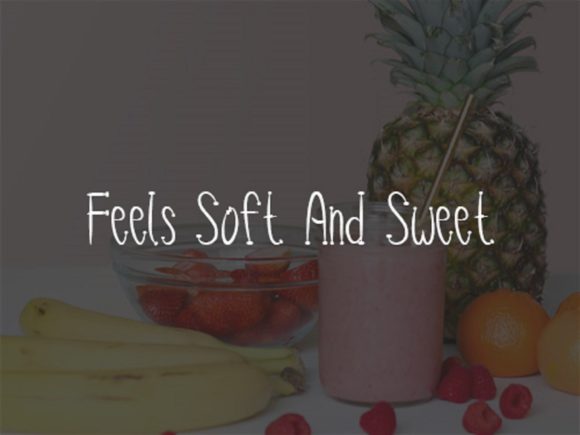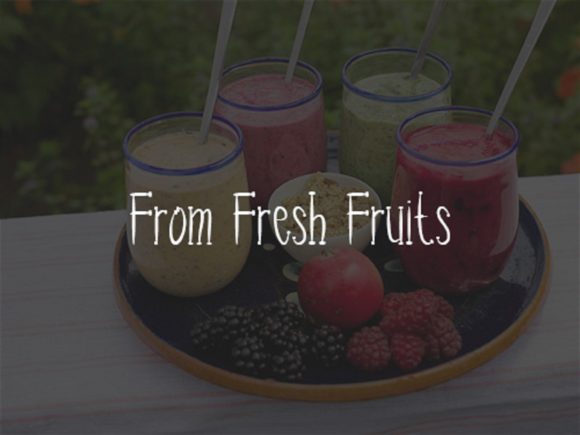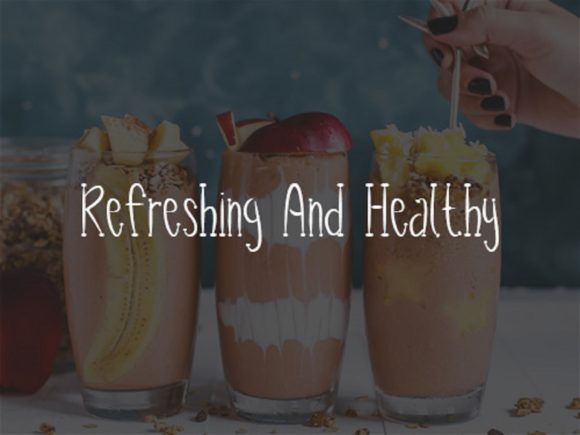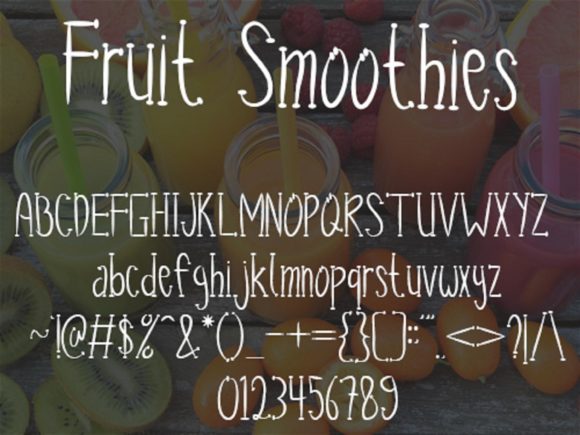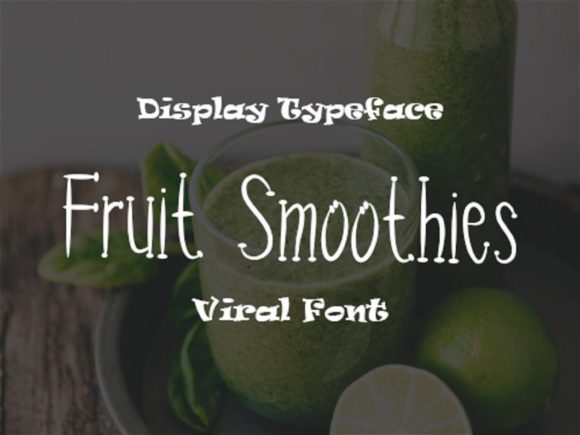
Fruit Smoothies Font: A Deliciously Quirky and Cute Handwritten Font
Are you tired of using the same old fonts for your designs? Look no further than the Fruit Smoothies font, a simple, quirky, and cute handwritten font that’s perfect for adding a touch of personality to your projects. With its natural and unique style, Fruit Smoothies is incredibly versatile and can be used for a wide range of designs, from fun and playful to elegant and sophisticated.
The Characteristics of Fruit Smoothies Font
Fruit Smoothies font is a handwritten font that’s designed to look like it was written with a marker or a pen. It’s a casual, laid-back font that’s perfect for designs that need a personal touch. The font features:
- Unique and Quirky Style: Fruit Smoothies font has a one-of-a-kind style that’s sure to make your designs stand out. Its quirky and playful vibe is perfect for designs that need a bit of personality.
- Natural and Handwritten Look: The font has a natural, handwritten look that’s perfect for designs that need a personal touch. It’s like having your own personal handwriting, but without the hassle of actually writing it yourself!
- Highly Versatile: Fruit Smoothies font is incredibly versatile and can be used for a wide range of designs, from fun and playful to elegant and sophisticated. Whether you’re designing a logo, a poster, or a social media graphic, this font is sure to fit the bill.
What Can You Use Fruit Smoothies Font For?
The possibilities are endless when it comes to using Fruit Smoothies font. Here are just a few ideas to get you started:
- Branding and Logo Design: Use Fruit Smoothies font to create a unique and memorable logo for your business or brand. Its quirky and playful vibe is perfect for companies that want to stand out from the crowd.
- Social Media Graphics: Add a touch of personality to your social media graphics with Fruit Smoothies font. Whether you’re creating a Facebook post, an Instagram story, or a Twitter header, this font is sure to make your designs pop.
- Poster and Flyer Design: Use Fruit Smoothies font to create eye-catching posters and flyers for your next event or promotion. Its bold and playful style is sure to grab attention and get people talking.
- Crafting and DIY Projects: Fruit Smoothies font is perfect for crafters and DIY enthusiasts who want to add a personal touch to their projects. Use it to create custom signs, labels, and other decorations for your home or office.
Why Choose Fruit Smoothies Font?
So why choose Fruit Smoothies font over other fonts on the market? Here are just a few reasons:
- Unique Style: Fruit Smoothies font has a unique and quirky style that’s sure to make your designs stand out.
- Easy to Read: Despite its playful style, Fruit Smoothies font is easy to read and understand, making it perfect for designs that need to communicate a message.
- Highly Versatile: Fruit Smoothies font can be used for a wide range of designs, from fun and playful to elegant and sophisticated.
In conclusion, Fruit Smoothies font is a deliciously quirky and cute handwritten font that’s perfect for designers and crafters who want to add a personal touch to their projects. With its unique and natural style, Fruit Smoothies is incredibly versatile and can be used for a wide range of designs. Whether you’re creating a logo, a social media graphic, or a crafting project, Fruit Smoothies font is sure to make your designs stand out. So why wait? Download Fruit Smoothies font today and start creating your own unique and eye-catching designs!